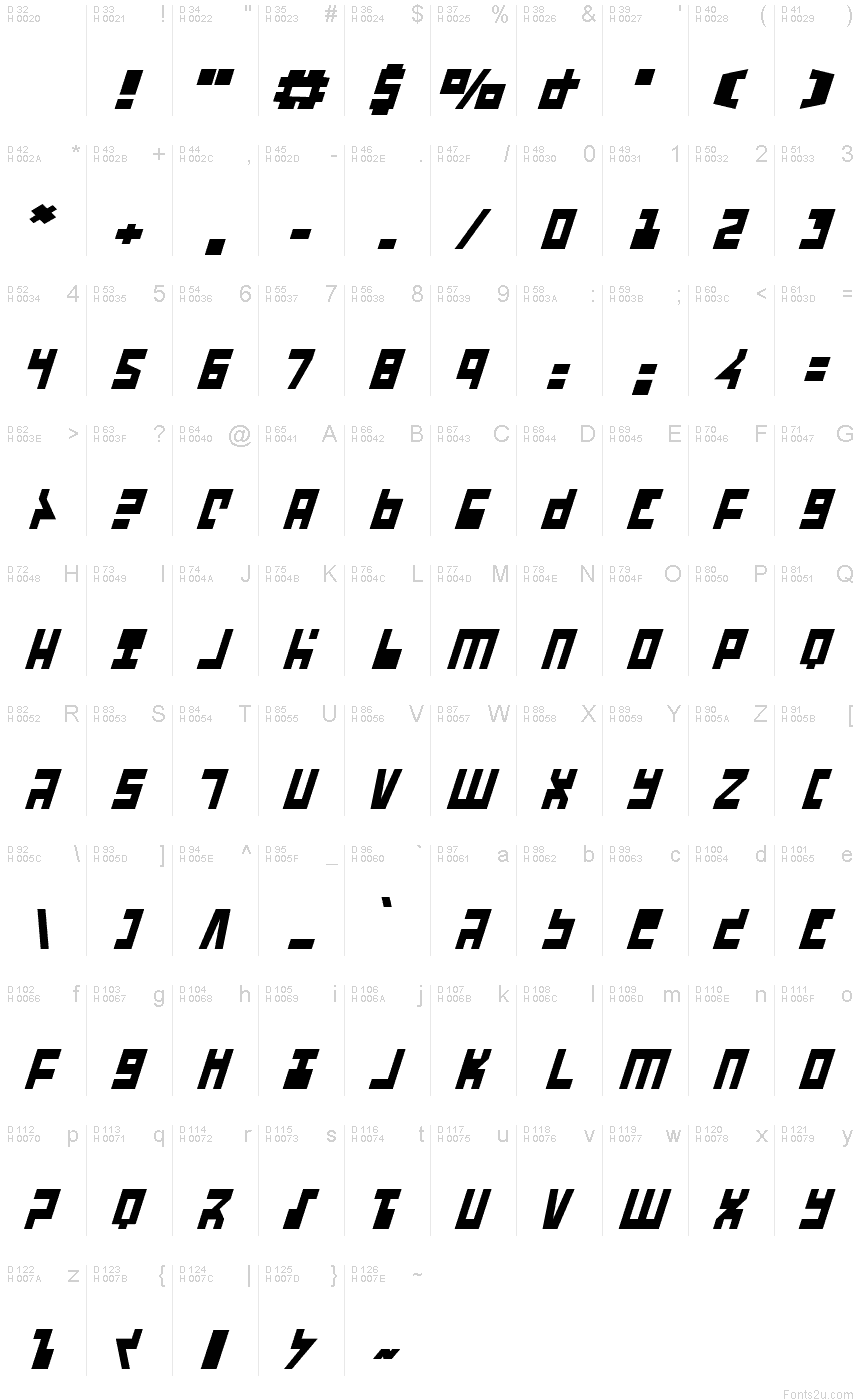
UFO Hunter Italic by Daniel Zadorozny of Iconian Fonts is a free futuristic techno display font with a severe forward slant. Broad, sharply cut strokes are split by rectangular gaps, giving the letters a modular, machine-built structure. The silhouette feels fast and aerodynamic.
Its science-fiction styling suits game title screens and electronic music artwork. Angular breaks can echo control-panel graphics on event posters and merchandise. The strongest audience is designers working in space adventure, arcade, and cyber-themed entertainment.
UFO Hunter Italic